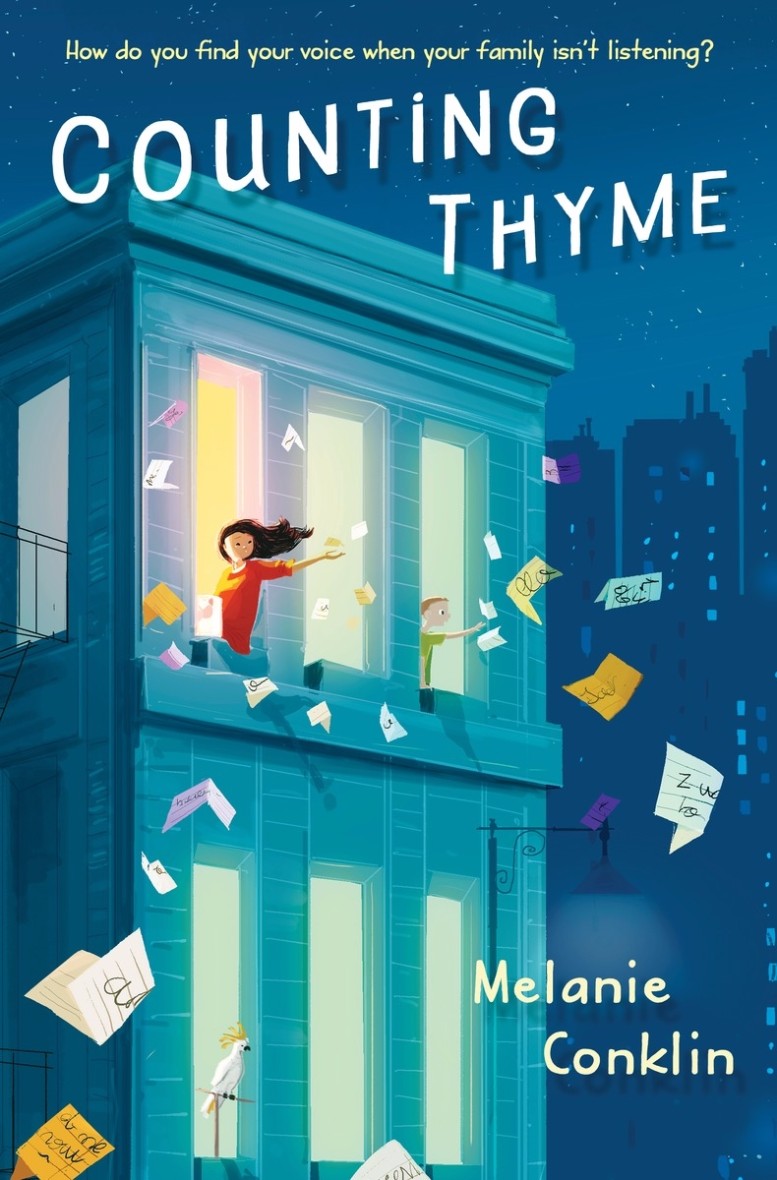
Counting Thyme Font
BookCounting Thyme is a children's book written by Melanie Conklin. It tells the story of a young girl named Thyme who is struggling to adapt to her new life in New York City after her family moves there for the treatment of her little brother, Val, who is accepted into a new cancer drug trial, that is just the second chance he needs.
Undersong Solid by PintassilgoPrints is used as the book title. Undersong is a fancy hand-drawn font family featuring 13 fonts that may be mixed or layered to create a range of fantastic designs. It was created by Ricardo Marcin and Erica Jung.